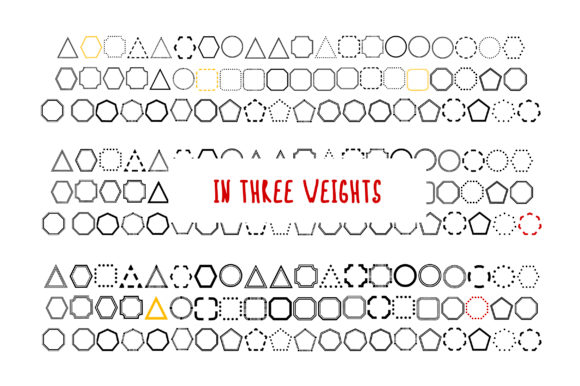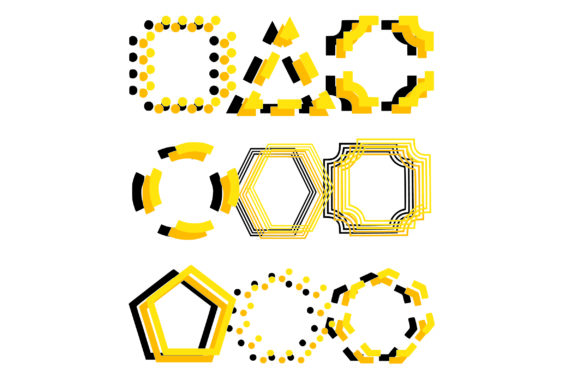
Unlock Creative Potential with BM Graphics – Graphic Shapes Glyph Font
Are you tired of using the same old fonts in your design projects? Do you want to add a touch of uniqueness and creativity to your work? Look no further than the BM Graphics – Graphic Shapes Glyph Font. This amazing dingbats font is packed with one-of-a-kind glyphs that will take your designs to the next level.
What is Graphic Shapes Glyph Font?
Graphic Shapes Glyph is a dingbats font that consists of a wide range of unique and creative glyphs. These glyphs are designed to help you add a touch of personality to your designs, making them stand out from the crowd. Whether you’re a designer, crafter, or DIY enthusiast, this font is perfect for anyone looking to add some extra flair to their work.
Key Features of Graphic Shapes Glyph Font
- Unique Glyphs: The Graphic Shapes Glyph Font features a wide range of unique and creative glyphs that will add a touch of personality to your designs.
- Dingbats Font: This font is a dingbats font, which means it’s perfect for adding decorative elements to your designs.
- Easily Customizable: The font is easily customizable, allowing you to adjust the size, color, and style to fit your design needs.
How to Use Graphic Shapes Glyph Font in Your Designs
The Graphic Shapes Glyph Font is perfect for designers and crafters who want to add a touch of uniqueness to their work. Here are some ideas for using this font in your designs:
- Social Media Graphics: Use the glyphs to create eye-catching social media graphics that will help your brand stand out.
- Business Cards: Add a touch of personality to your business cards with the unique glyphs in this font.
- Brochures and Flyers: Use the glyphs to add decorative elements to your brochures and flyers.
- Crafting Projects: The Graphic Shapes Glyph Font is perfect for crafters who want to add a touch of personality to their projects, such as scrapbooking and card making.
Benefits of Using Graphic Shapes Glyph Font
There are many benefits to using the Graphic Shapes Glyph Font in your designs. Here are a few:
- Unique Designs: The glyphs in this font are one-of-a-kind, ensuring that your designs will stand out from the crowd.
- Increased Creativity: The unique glyphs in this font will inspire you to think outside the box and try new things.
- Easier Design Process: The font is easy to use and customize, making the design process faster and more efficient.
The BM Graphics – Graphic Shapes Glyph Font is a must-have for designers and crafters who want to add a touch of uniqueness and creativity to their work. With its wide range of unique glyphs, ease of use, and compatibility with most design software, this font is perfect for anyone looking to take their designs to the next level. So why wait? Download the Graphic Shapes Glyph Font today and start creating stunning designs that will leave a lasting impression.